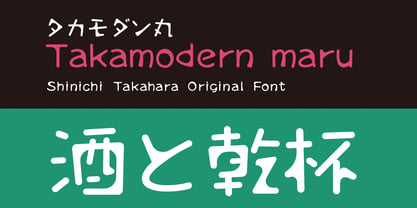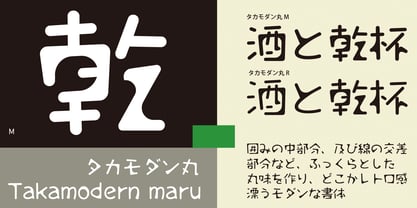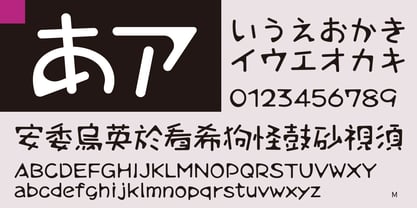
Takamodern-maru
by Taka Design Production
The Takamodern-maru Font Family was designed by and published by Taka Design Production. Takamodern-maru contains 2 styles and family package options. More about this family
The central part of the enclosure and the intersections of lines are rounded to create a modern design with a somewhat retro feel. In order to take advantage of the features of this typeface, only two typefaces are available in the family.